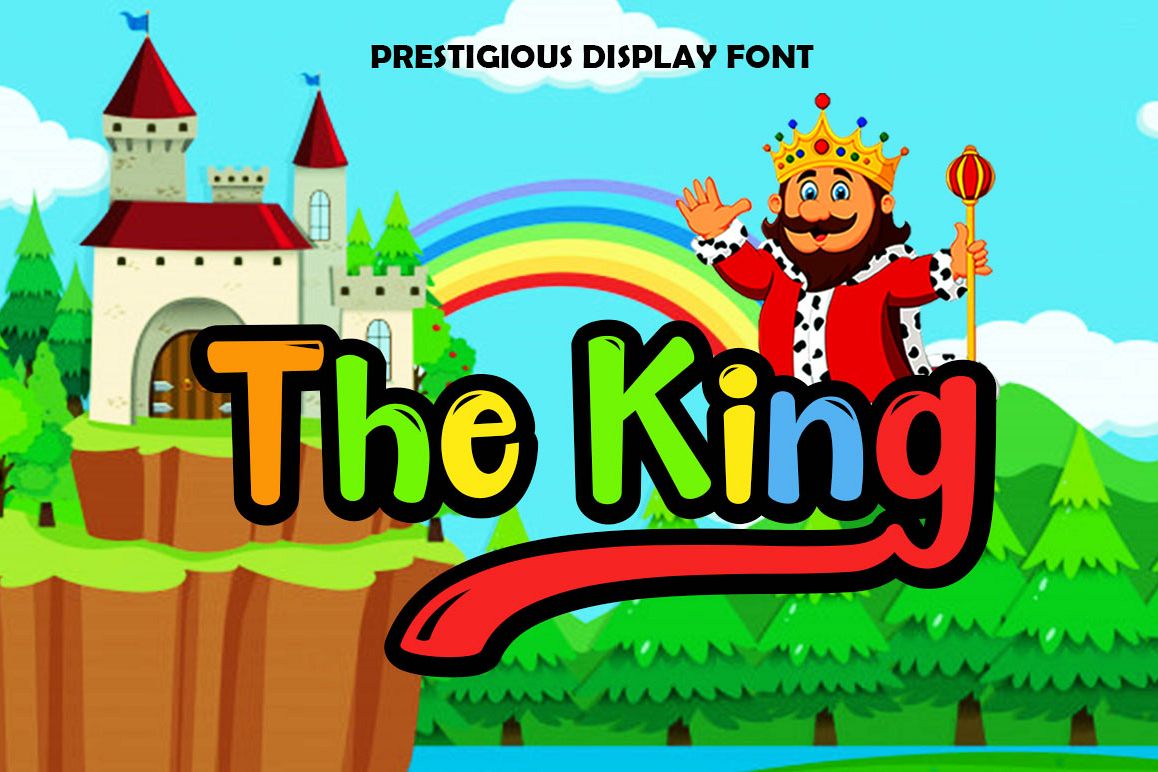
The King Display
I would like to introduce the New product with display type font.
Here it is "The King Display"
The King Display is playful font that I designed with fun style.
Provide with alternate swash make this font looks more playful but still prestige taste.